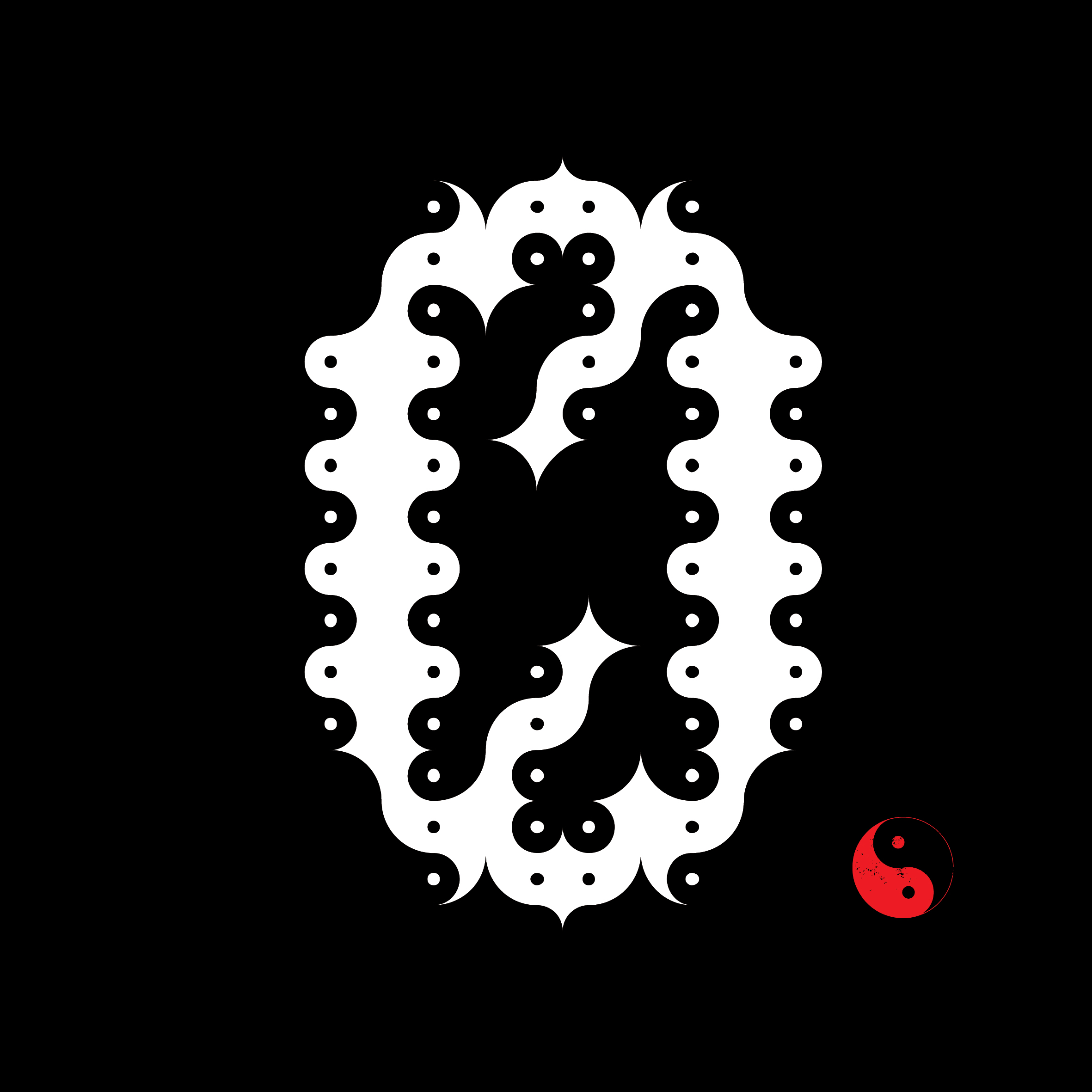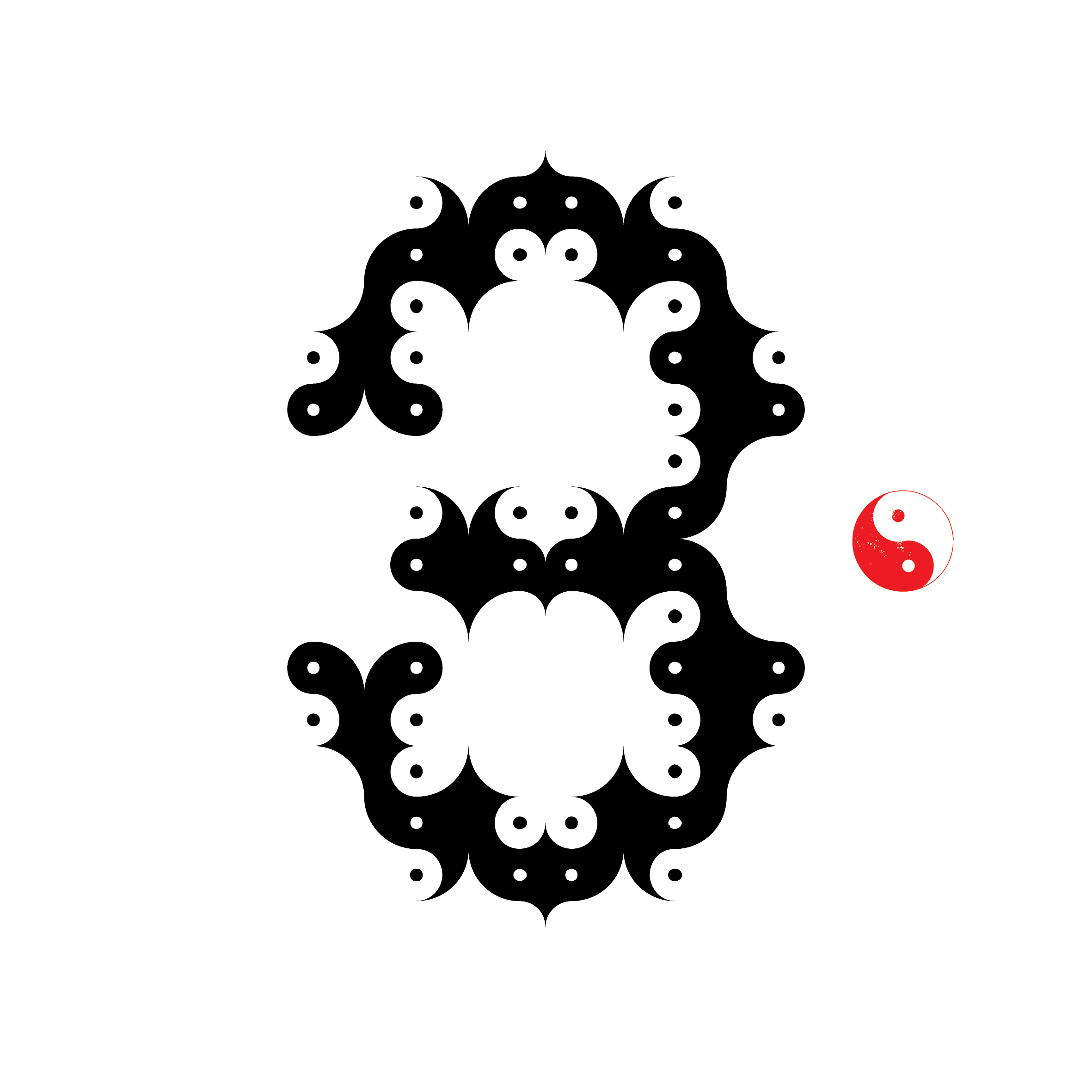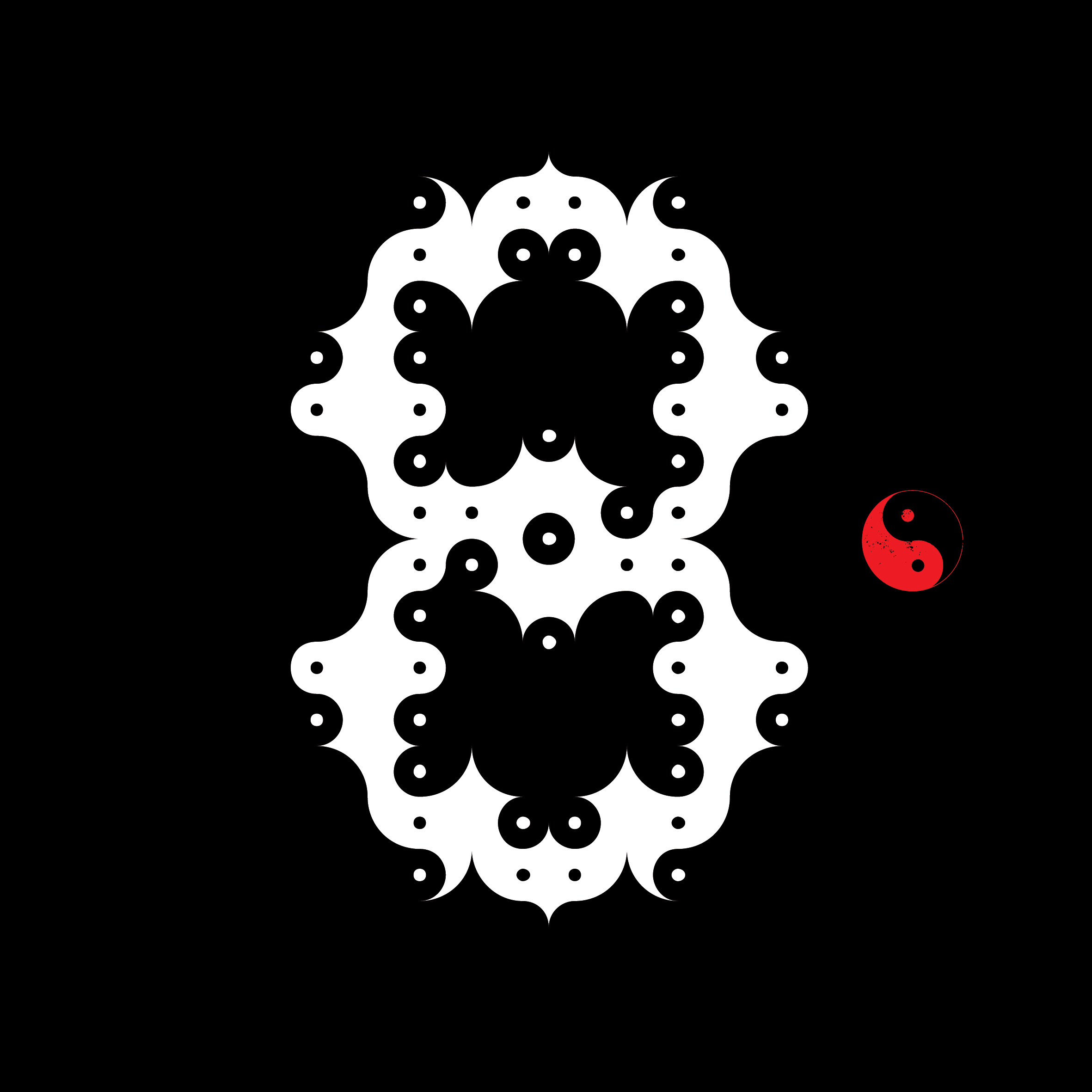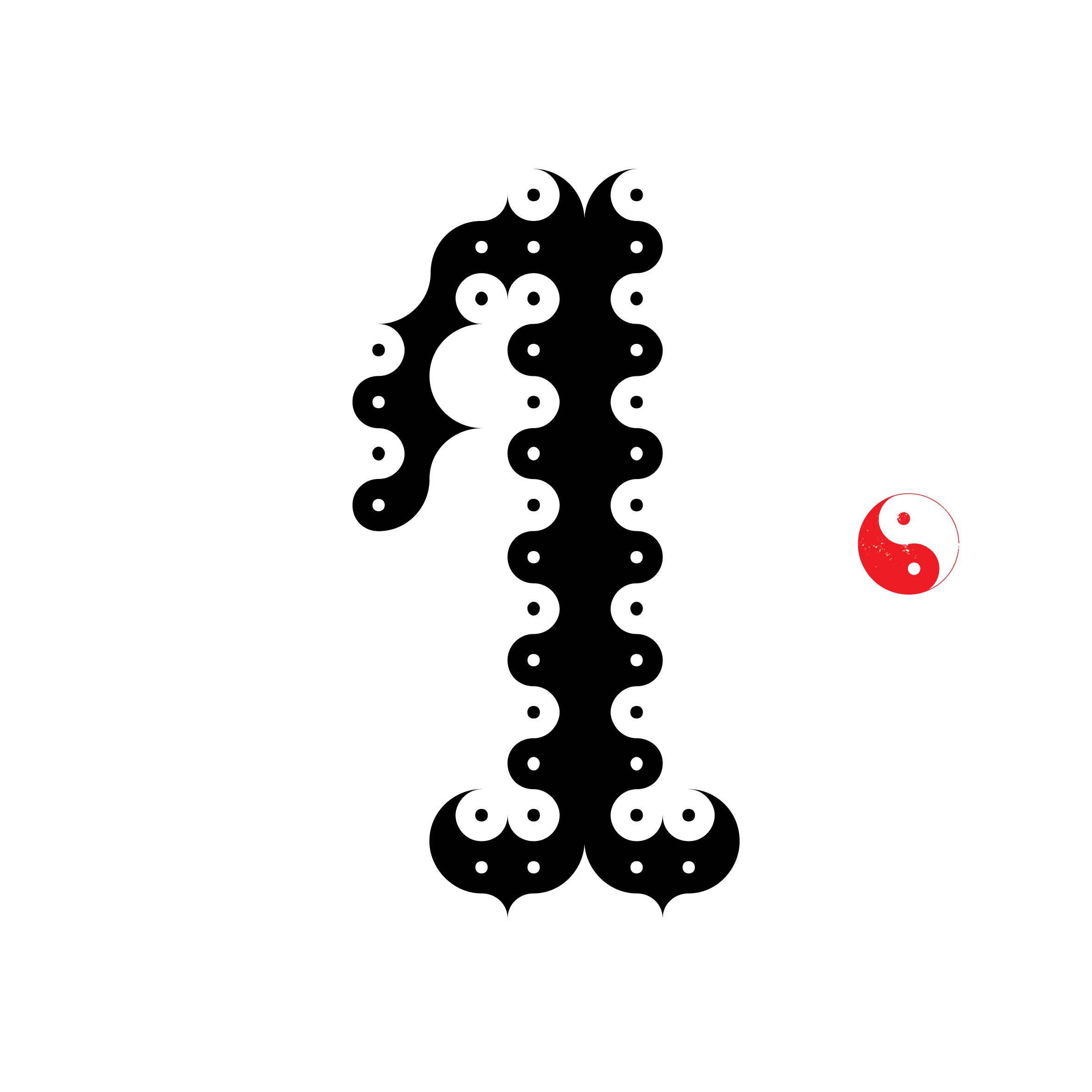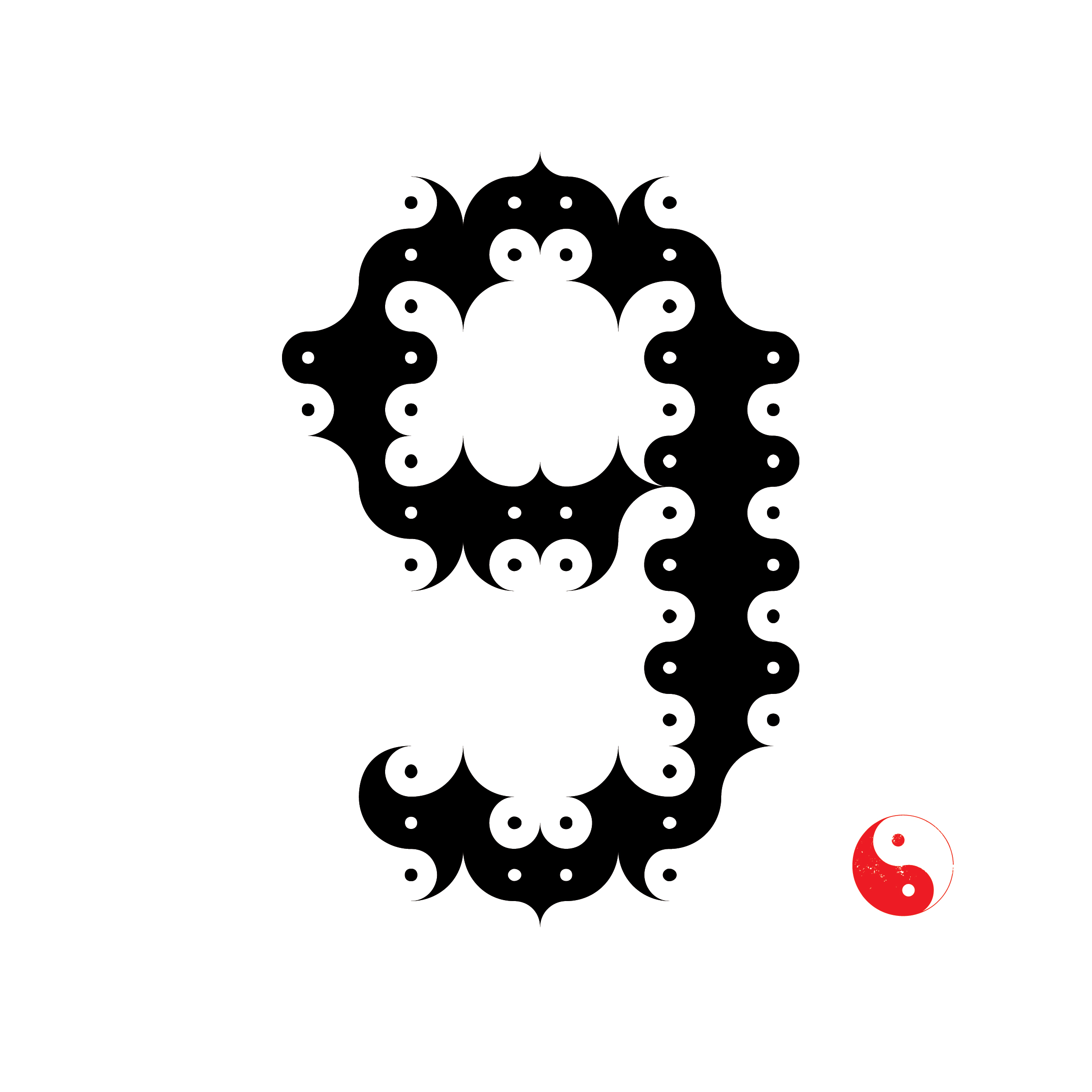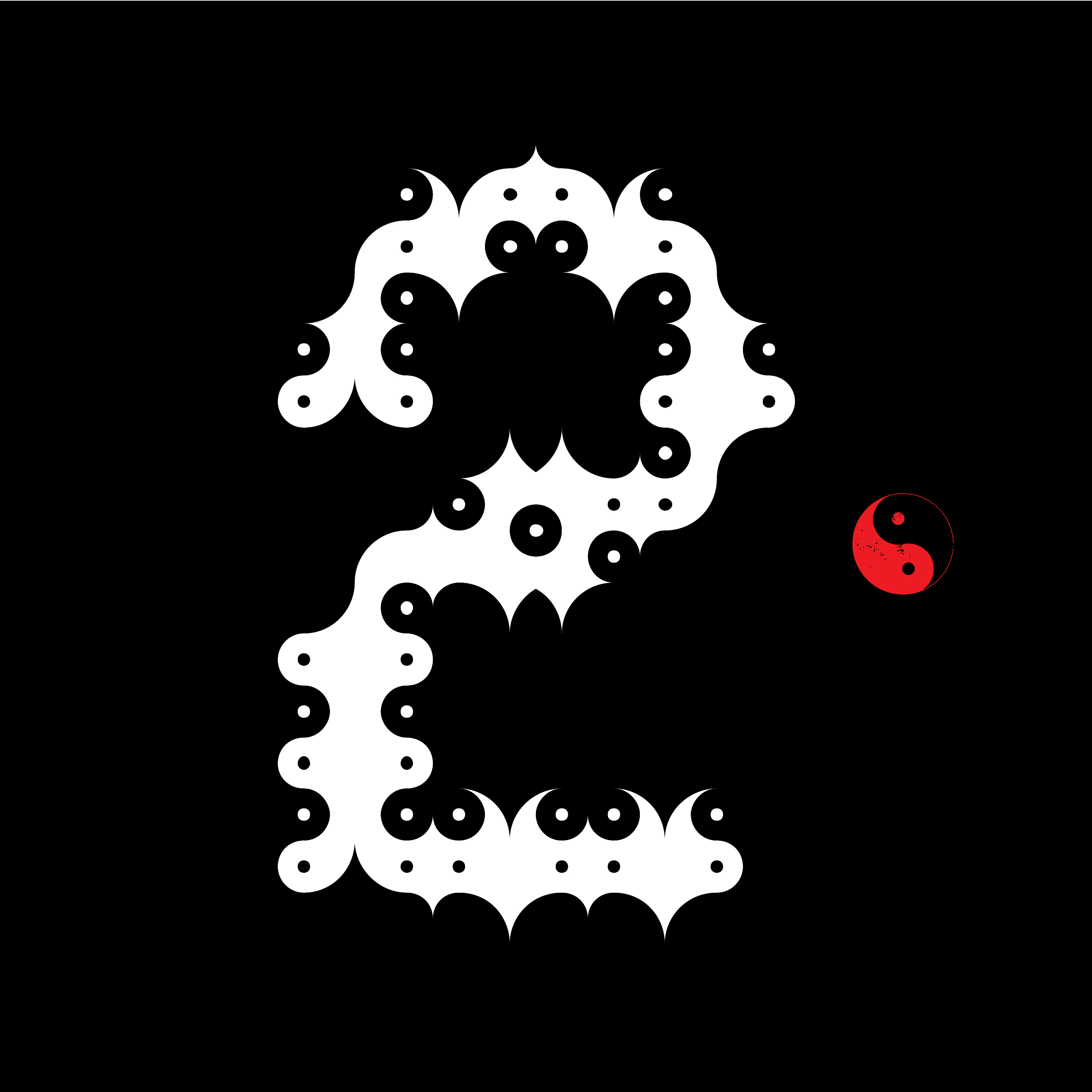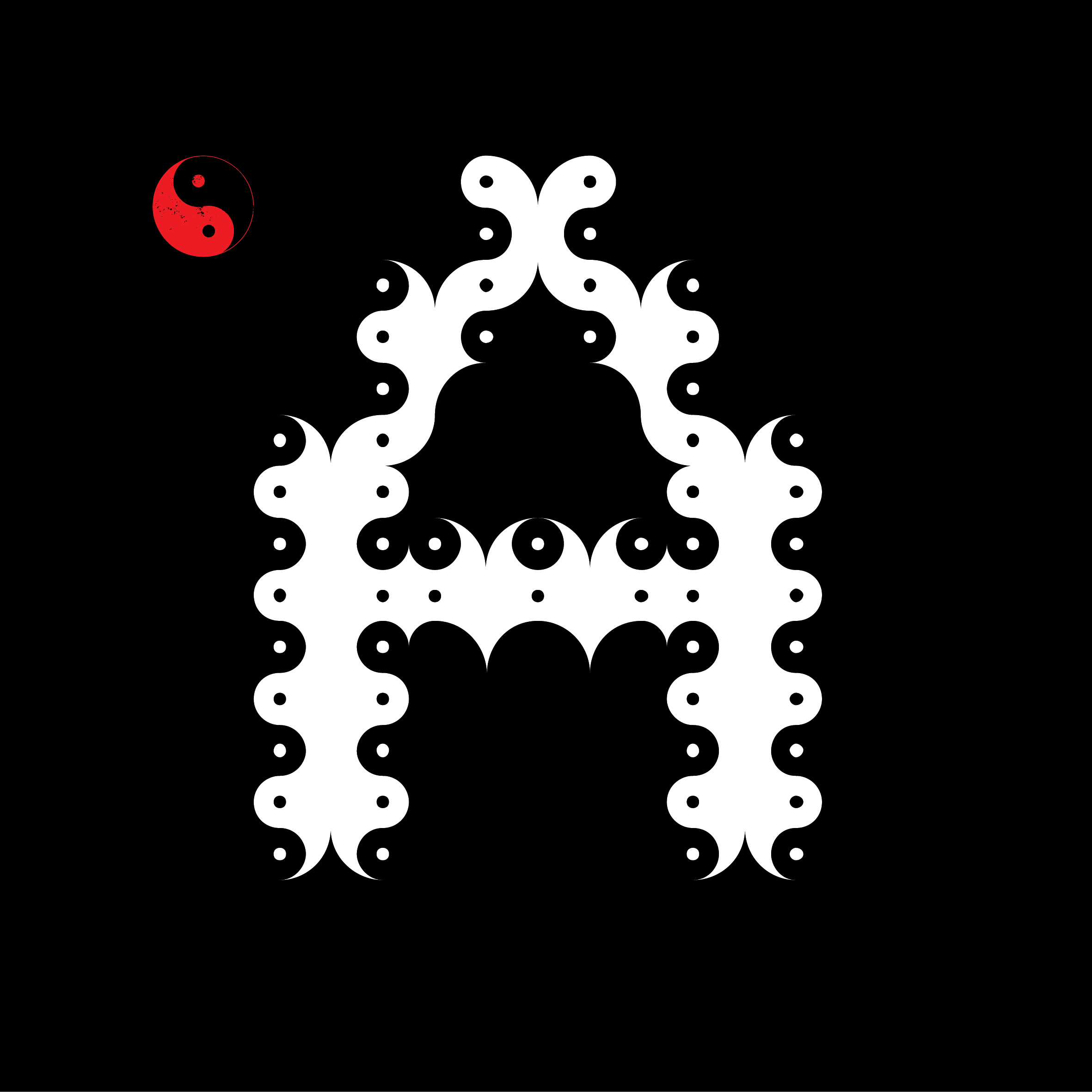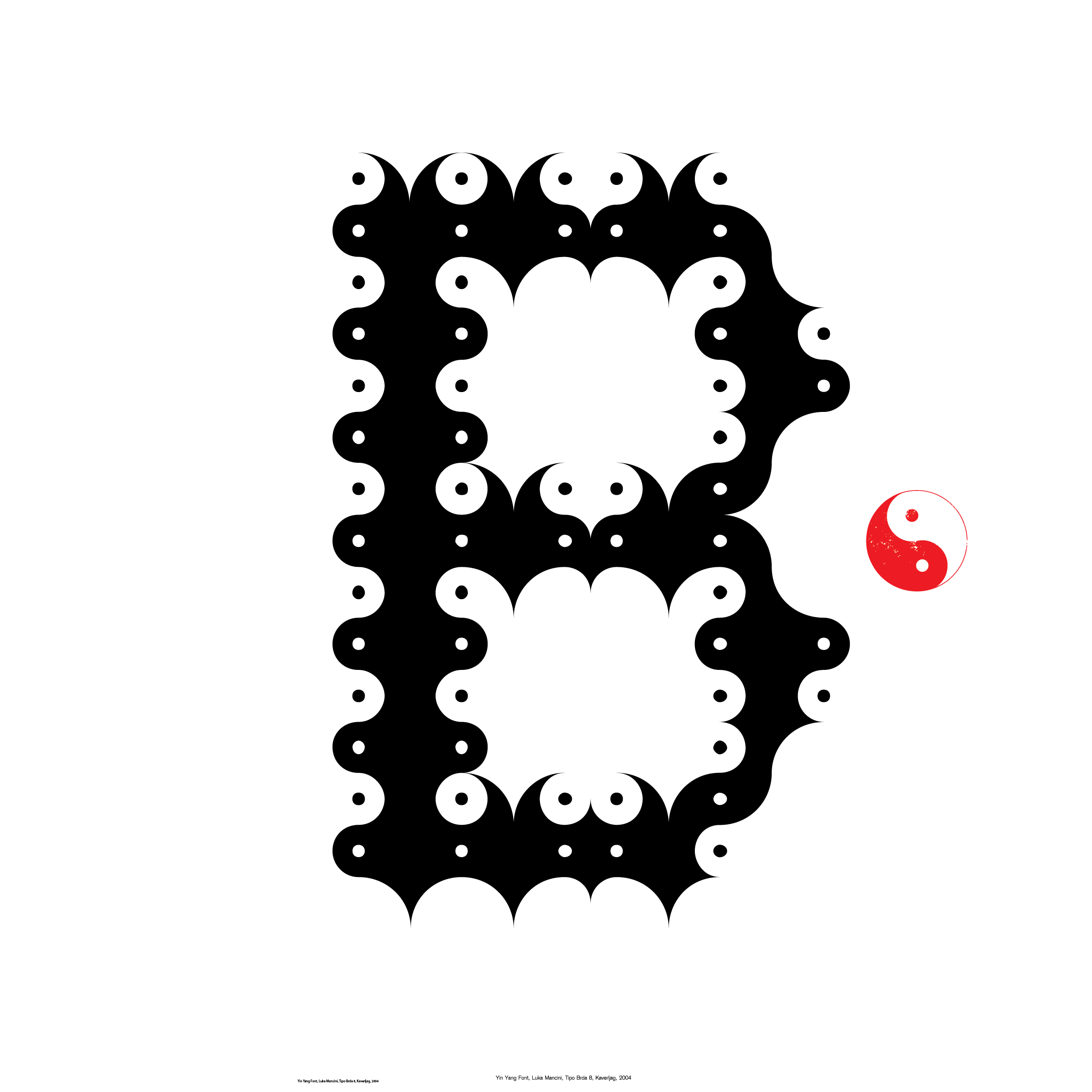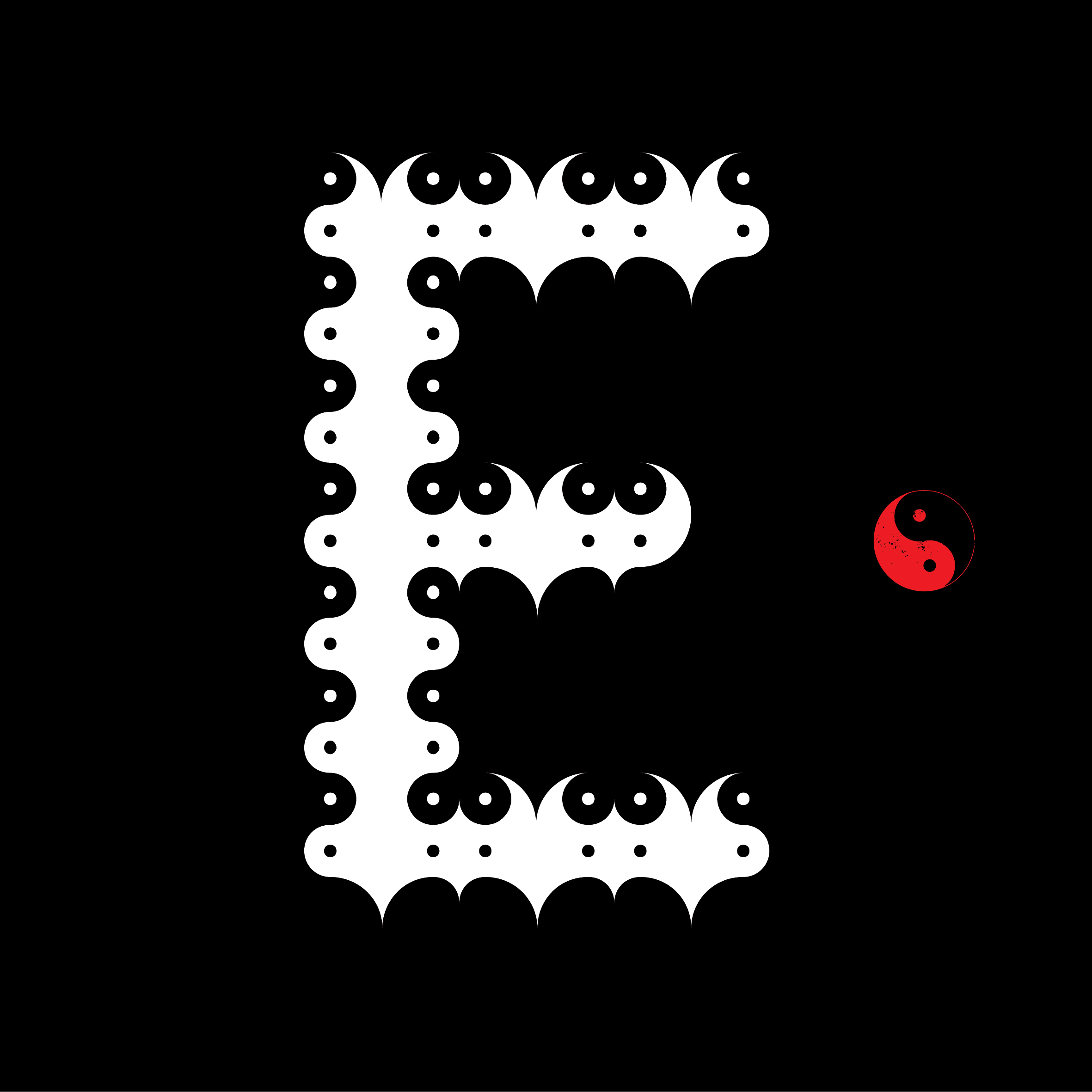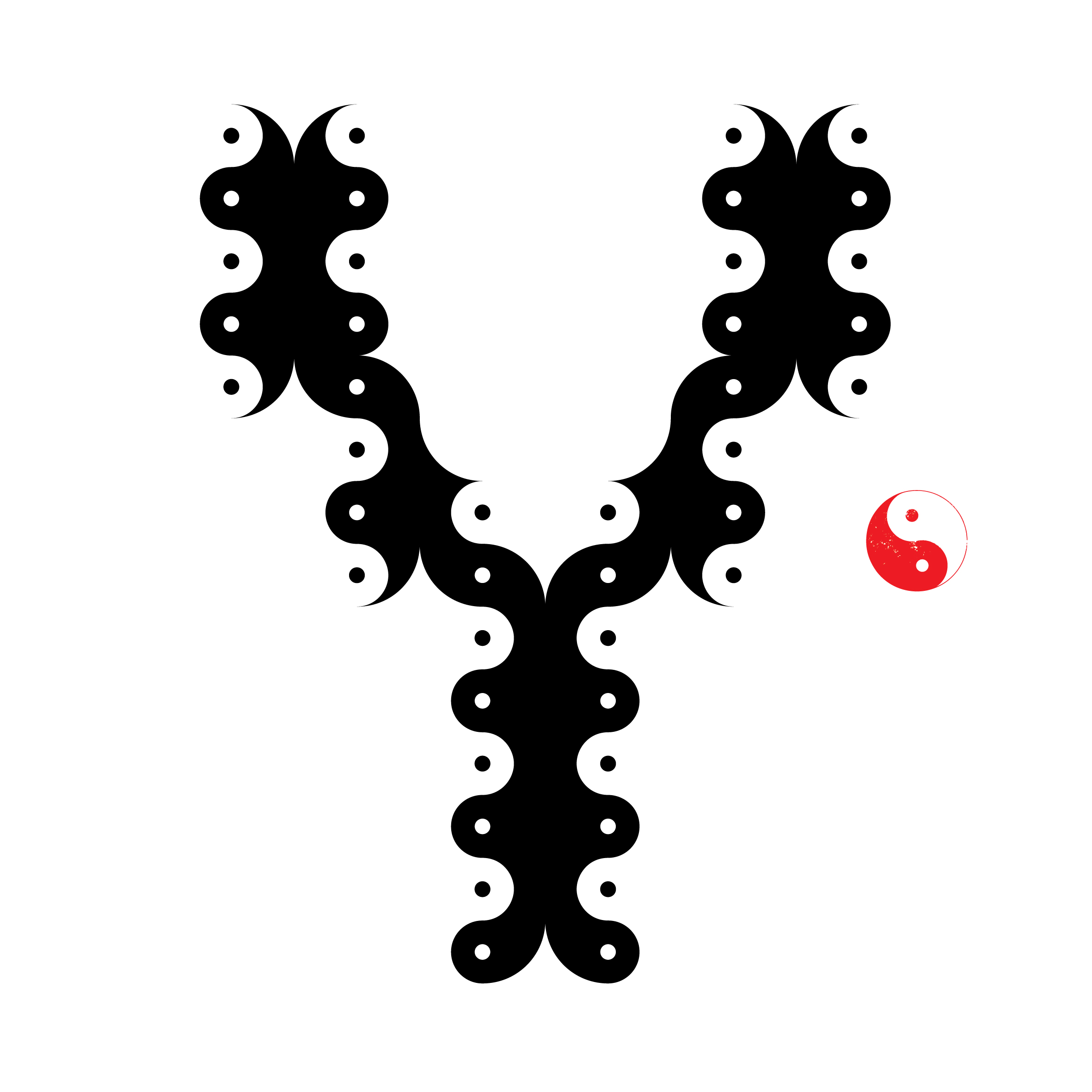
Yin Yang Font
The Yin Yang font is an experimental typographic project created in 2004 during the TipoBrda international workshop. The typeface is based on a deep visual and conceptual exploration of the Taijitu (yin and yang) symbol. Ancient Taoist masters claimed that meditating on this symbol could reveal all the secrets and laws of the universe. Taking this philosophy seriously, I later expanded this research into "holobionic" art (showcases on a separate page), with the Yin Yang font serving as a foundational piece of this lifelong journey.
From a technical standpoint, each letter is intricately and systematically constructed from multiple smaller yin and yang symbols. Placed upon a strict typographic grid, they maintain a disciplined structure that ensures legibility especially at smaller display sizes.